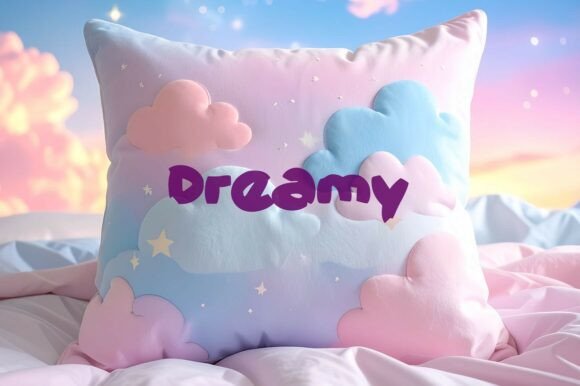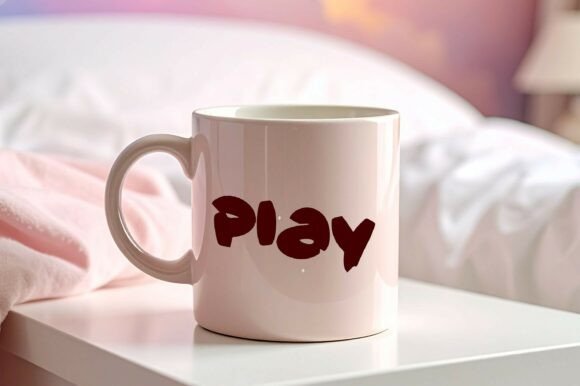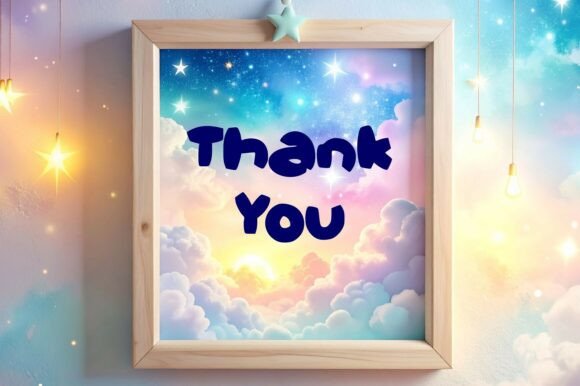
Introduction to Cerah Ceria Font
Have you ever stumbled upon a font that instantly transports you to a world of whimsy and wonder? For designers, discovering a new font can be a game-changer, offering endless possibilities for creative projects. I recall the excitement I felt when I first laid eyes on the Cerah Ceria Font – its soft, bubble-like letterforms seemed to radiate childlike joy, making me want to design something special.
As a design enthusiast, I know how valuable it is to have high-quality fonts at our fingertips. The Cerah Ceria Font is a treasure trove of creative potential, perfect for branding, logo design, social media posts, invitations, and stylish typography for print or digital media. With its transparent background and free download option, this font is an accessible design resource that’s sure to bring a smile to your designs.
Whether you’re designing for a kids’ clothing line, a toy store, or an educational app, the Cerah Ceria Font adds an enchanting touch that promises to share smiles. In this article, we’ll delve into the world of this delightful font and explore its many uses, making it an essential addition to your design arsenal.
Key Features of Cerah Ceria Font
- High-quality font design with a transparent background, ideal for creative projects requiring a clean and minimalist aesthetic.
- Unique characteristics include a modern sans-serif design and a wide range of stylistic alternates, allowing for creative expression and customization.
- Perfect for use in logos, branding materials, and other design elements where a clean and sophisticated look is desired.
- Designed to be easily scalable and legible in various font sizes, making it an excellent choice for a wide range of creative projects.
Honest Review: Cerah Ceria Font
I recently had the chance to work with the Cerah Ceria Font, and I must say it’s been a great addition to my design projects. This font is perfect for those who are looking for a high-quality, elegant, and creative solution.
What works well: ✨ The font’s sleek and modern design makes it a great fit for any project that requires a touch of sophistication. The transparent background allows for seamless integration with any image or background, giving you complete control over the design.
- The Cerah Ceria Font is highly customizable, allowing you to adjust the size, color, and style to suit your needs.
What doesn’t work well: ⚠️ While the font is high-quality, it may not be suitable for all types of projects. For example, it may not be the best choice for a bold, playful design.
Overall, I’m really impressed with the Cerah Ceria Font. It’s a fantastic design resource that can elevate any project. With its sleek design, transparent background, and free download, it’s a must-have for any designer’s toolkit.
Tips for Getting the Most Out of Cerah Ceria Font
For a high-quality design, use the Cerah Ceria Font in combination with a transparent background to create a clean and modern look. This font is ideal for creative projects that require a unique and creative touch. You can also experiment with different font sizes and colors to get the most out of this design resource.
The Cerah Ceria Font is commonly used in creative projects such as branding, marketing materials, and social media graphics. Its unique and creative style makes it an excellent choice for designers looking to add a touch of elegance to their designs.